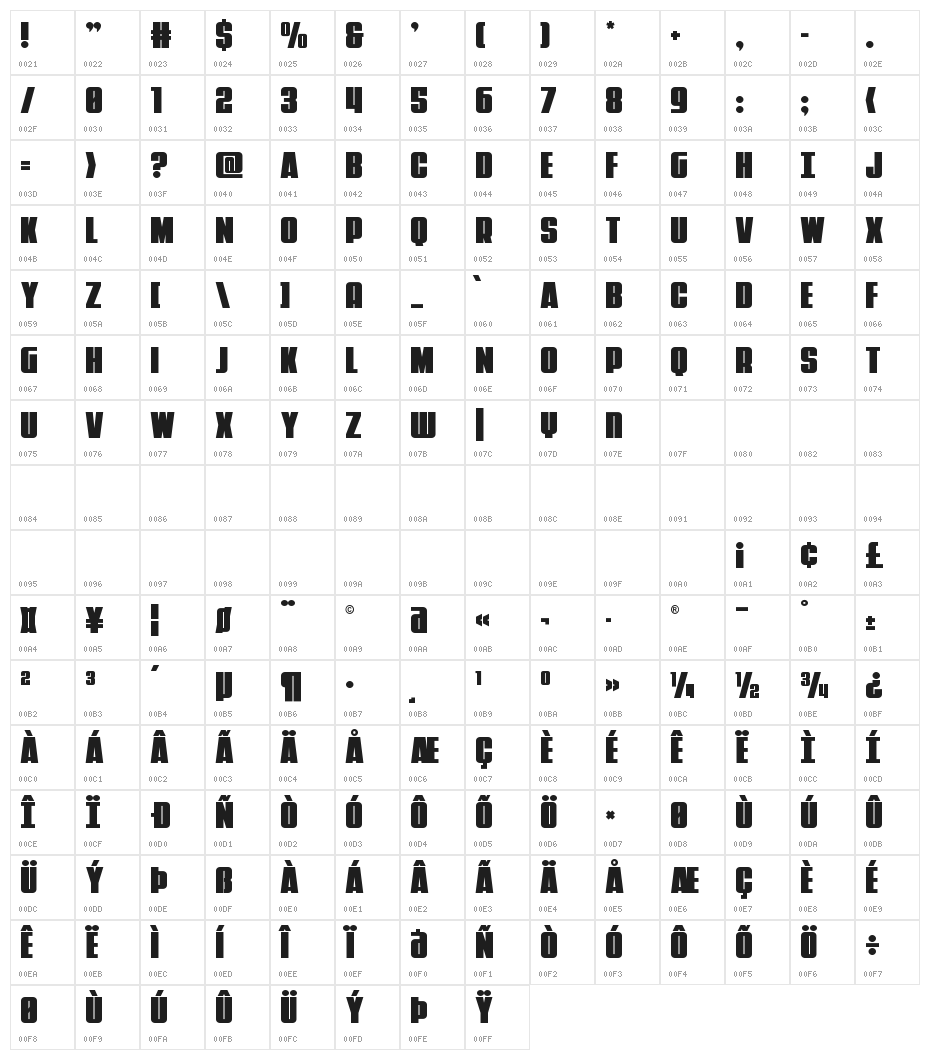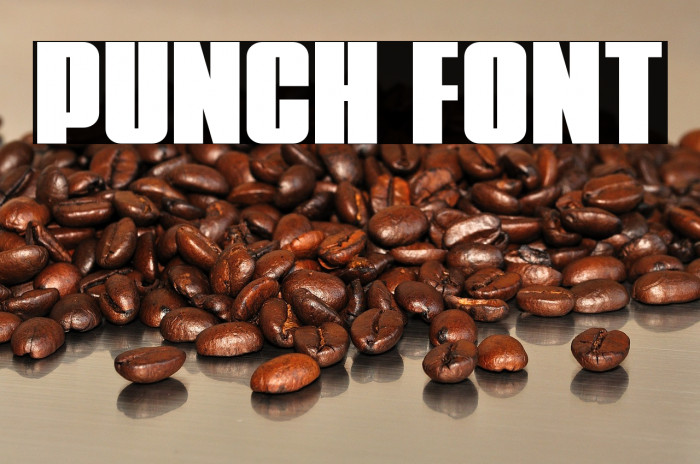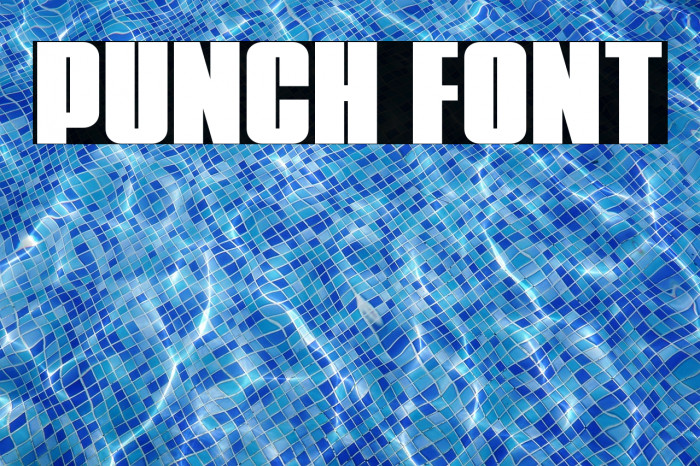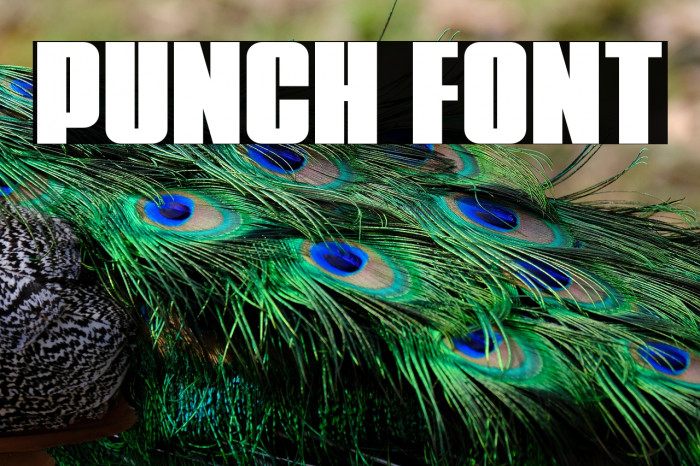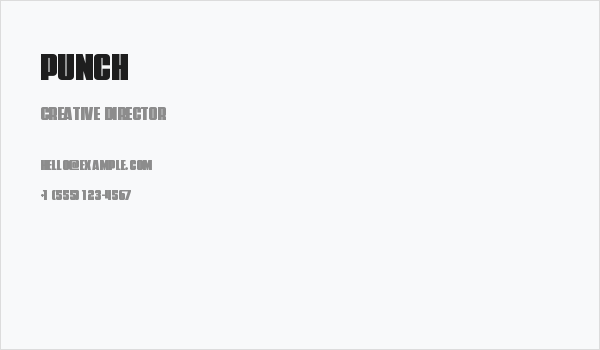
Punch Font
Punch Description
This font is a bold, impactful typeface with a strong presence. The characters are blocky and robust, featuring thick strokes that convey a sense of strength and authority. The uppercase letters are particularly prominent, with a uniform height and width that create a cohesive look. The numbers and special characters maintain this bold style, ensuring consistency across all glyphs. The font's design is straightforward, with minimal decorative elements, making it suitable for attention-grabbing headlines and signage. Its heavy weight and solid structure make it ideal for projects that require a commanding visual impact.
| Proposed Projects | Ideal for headlines, posters, signage, and branding materials that require a strong visual impact. |